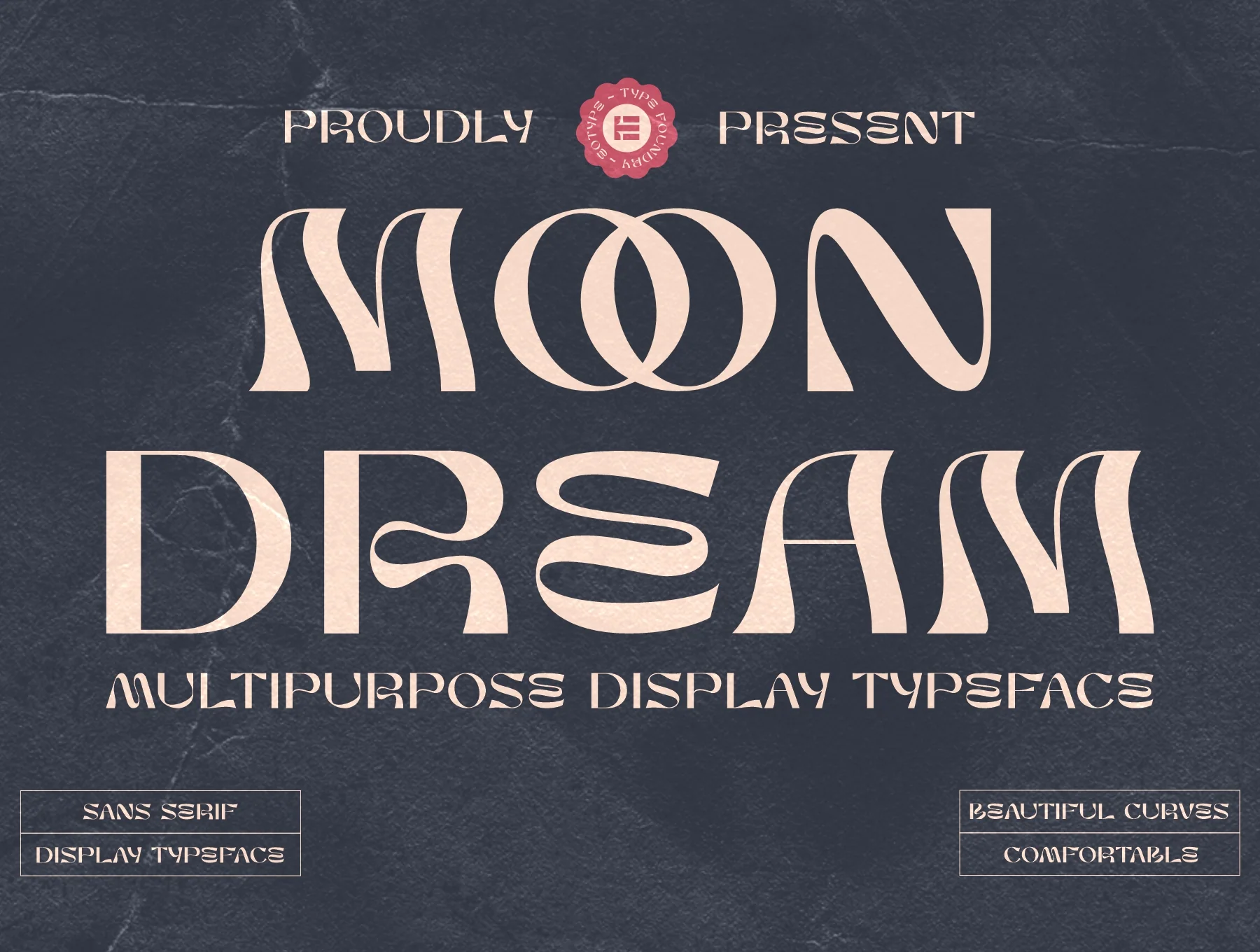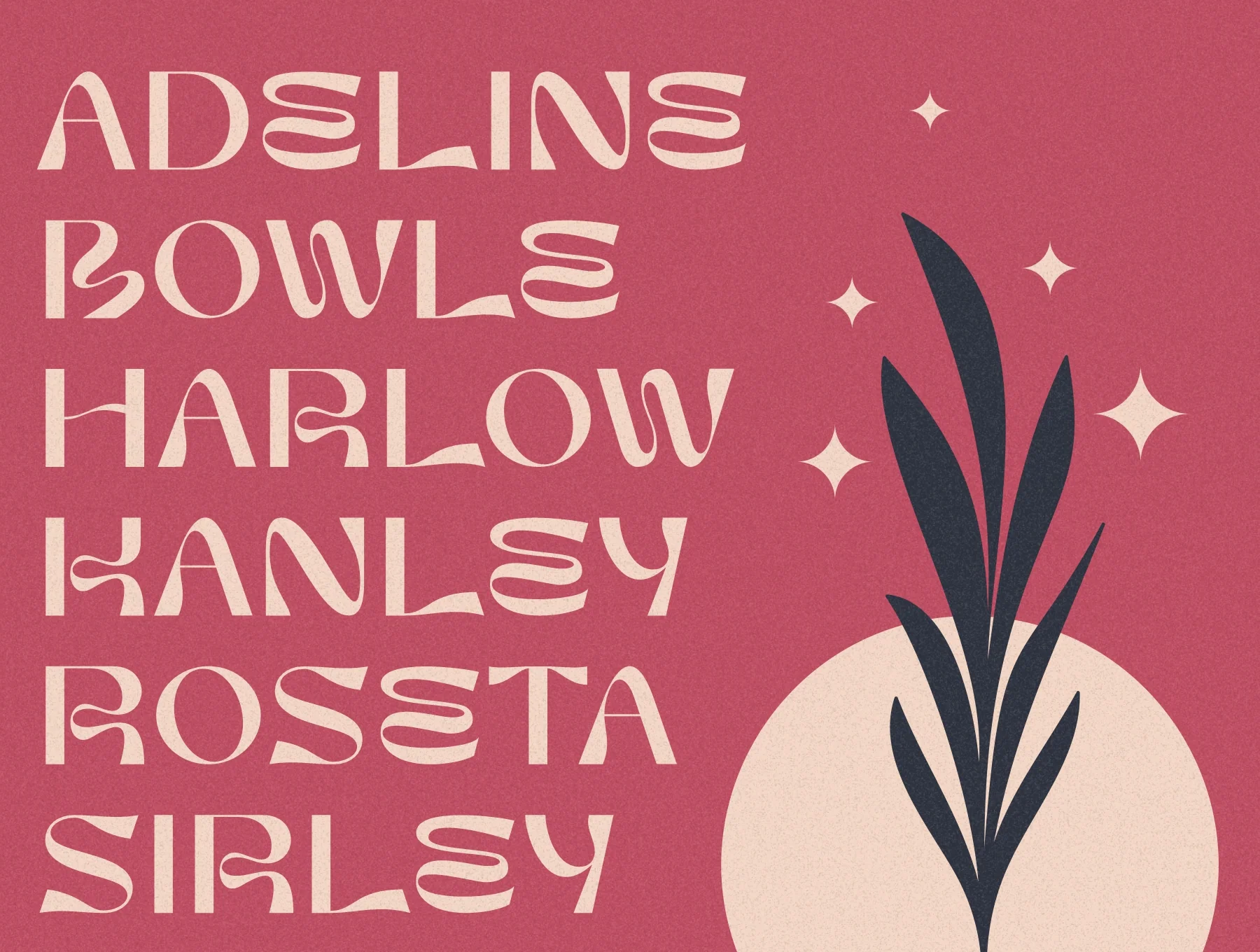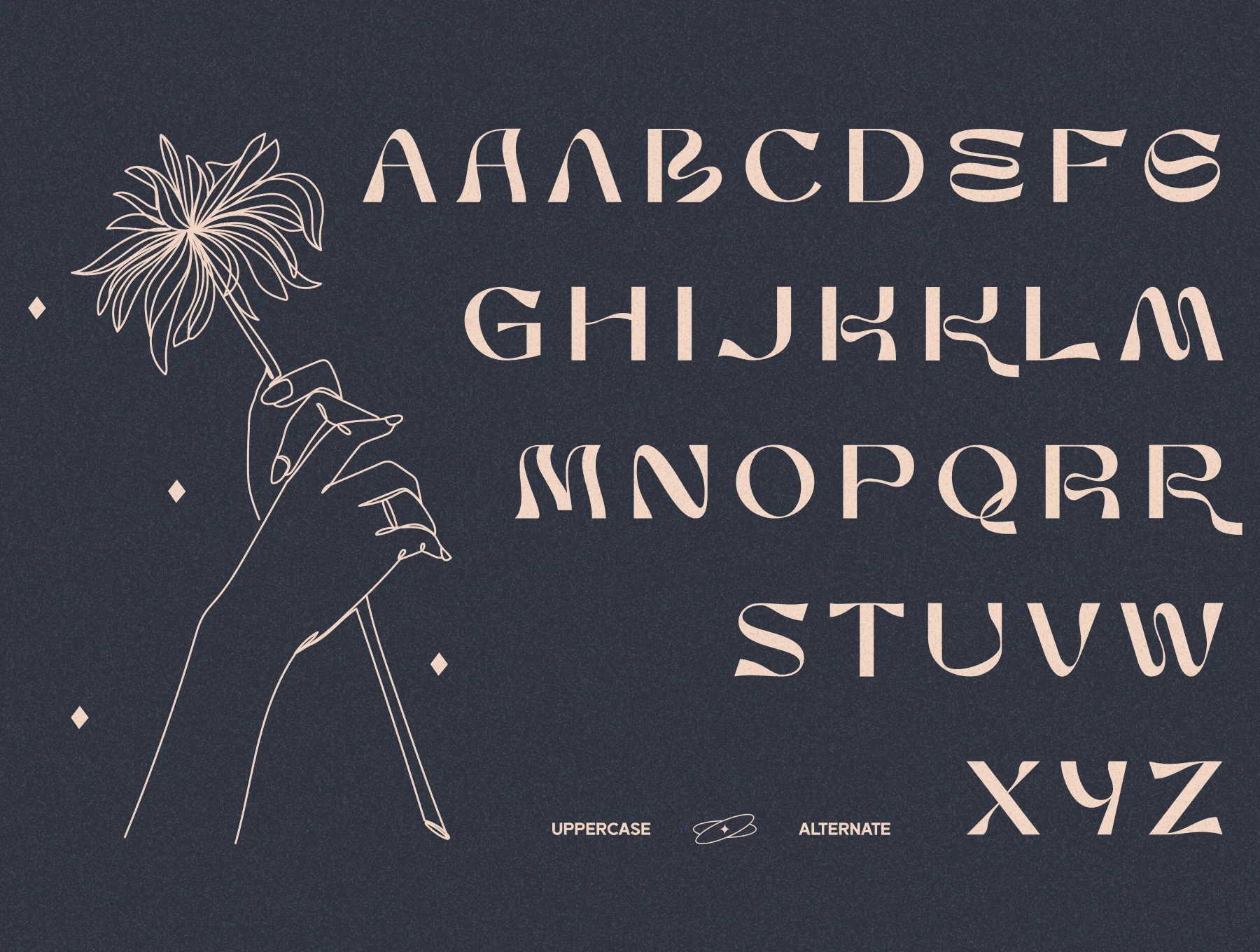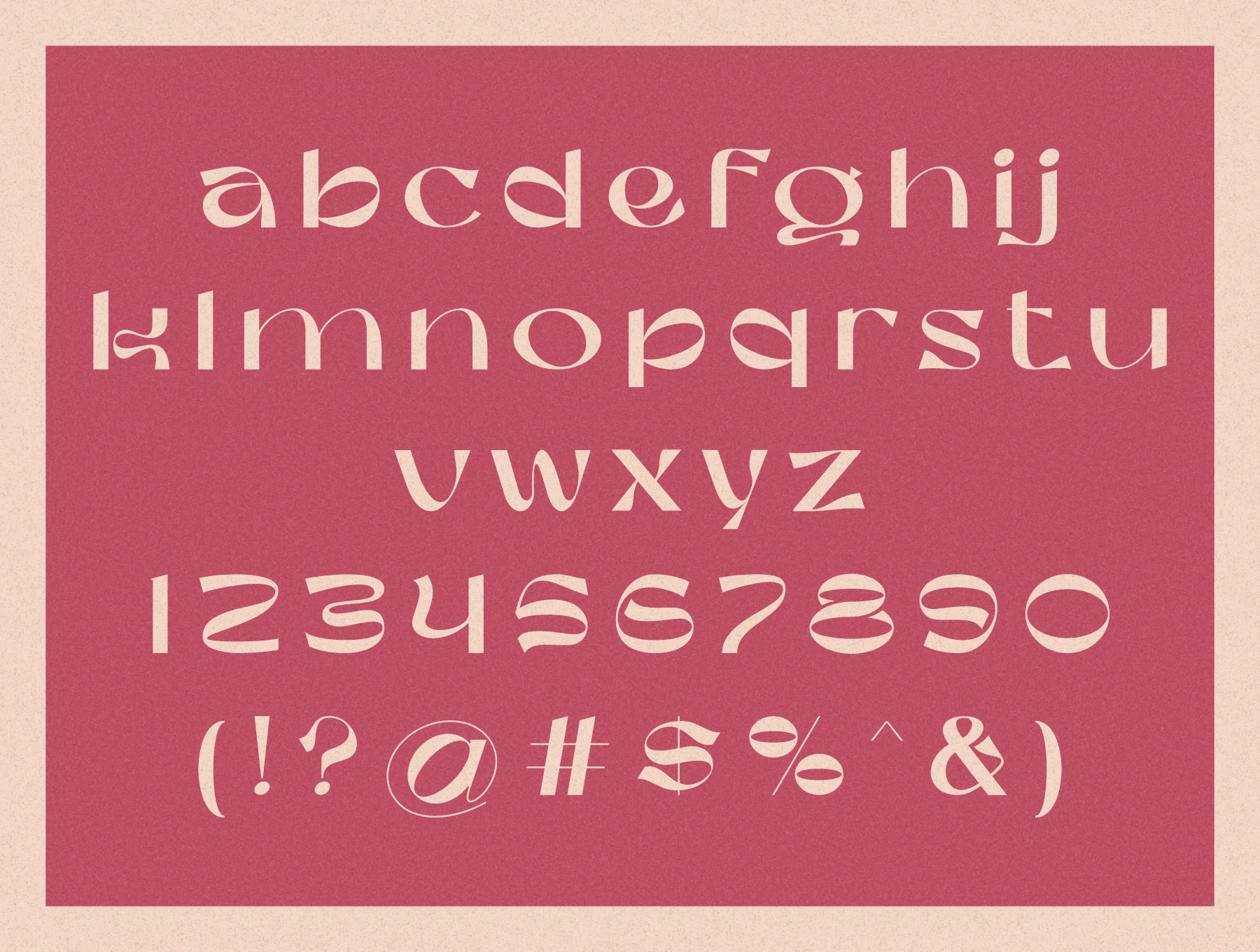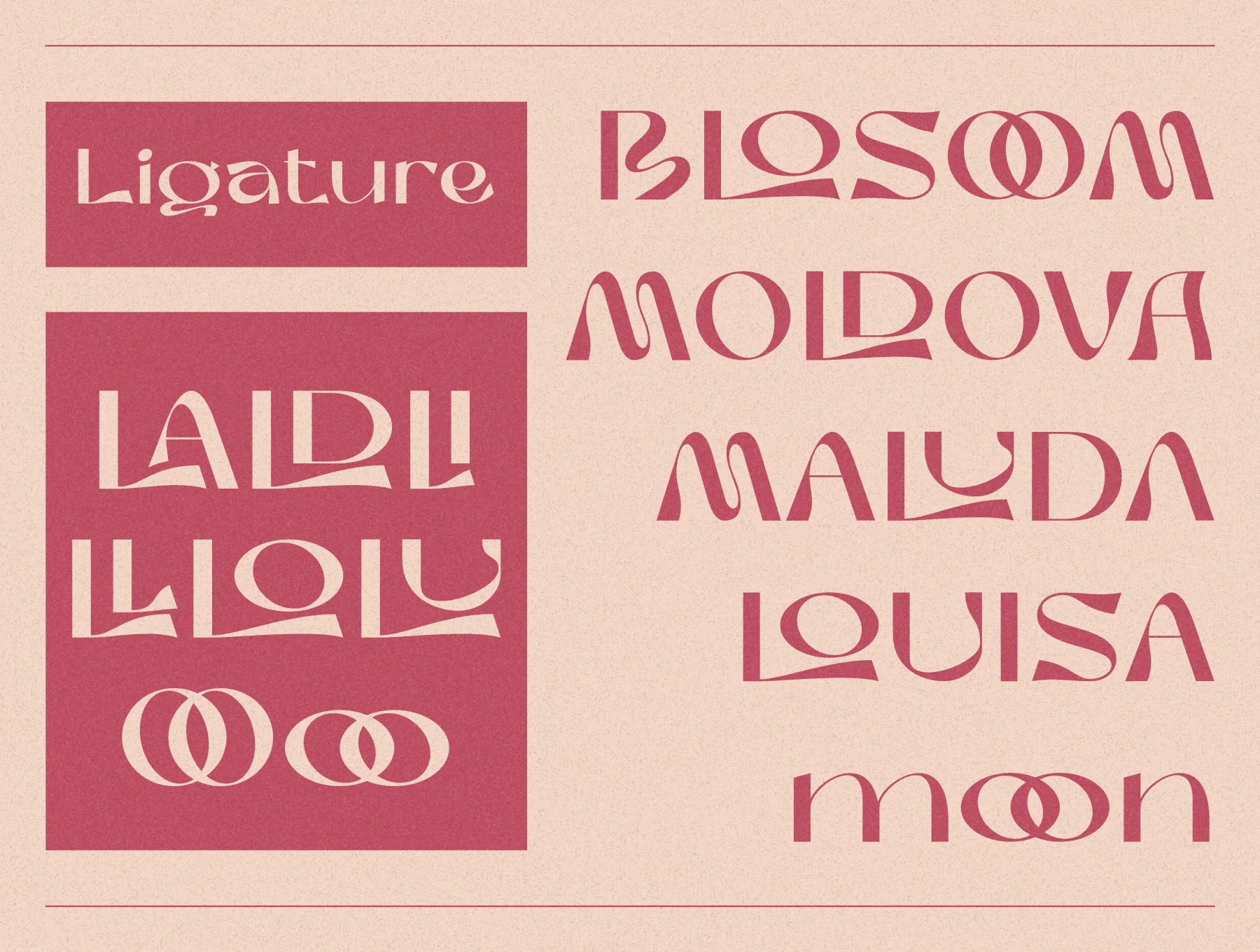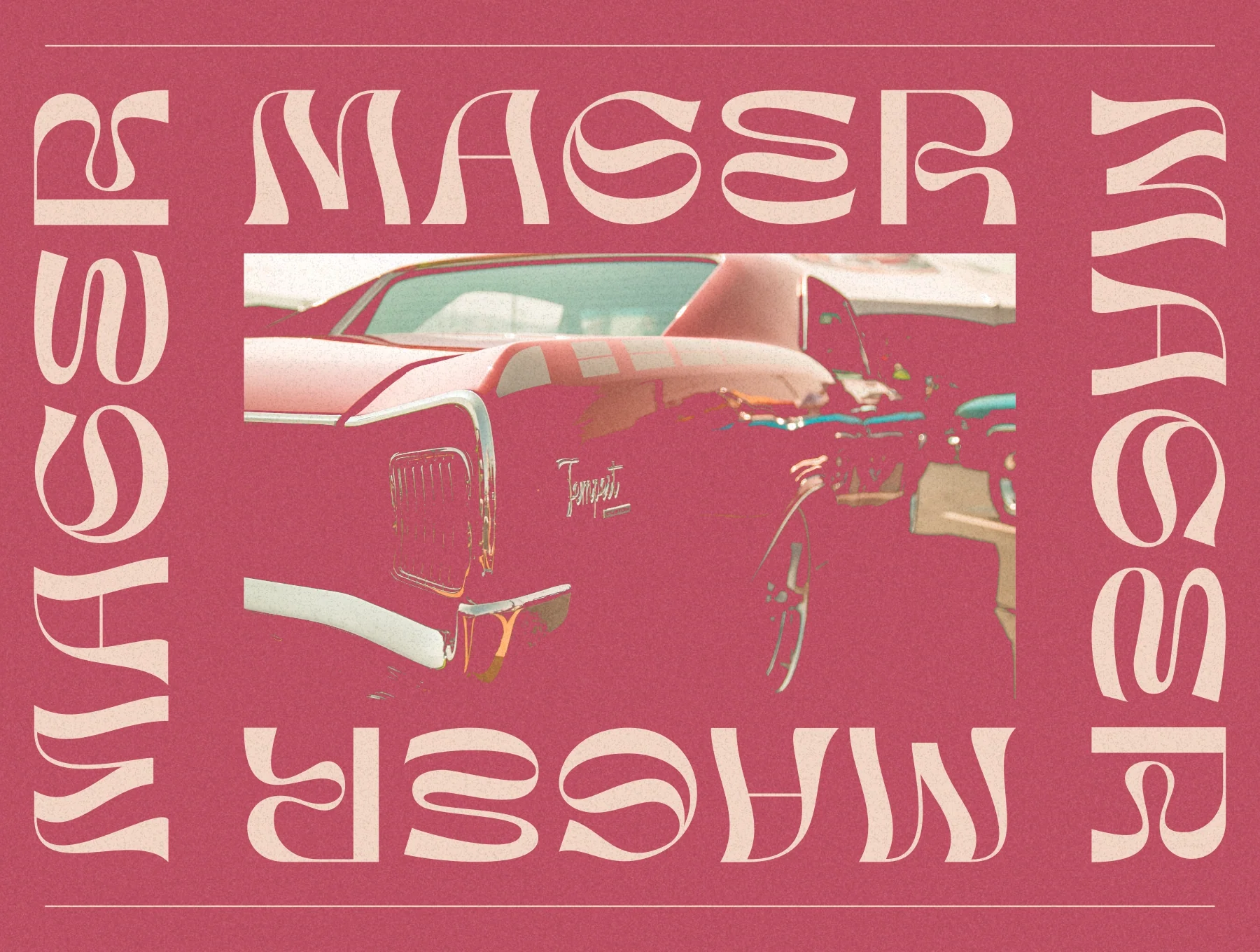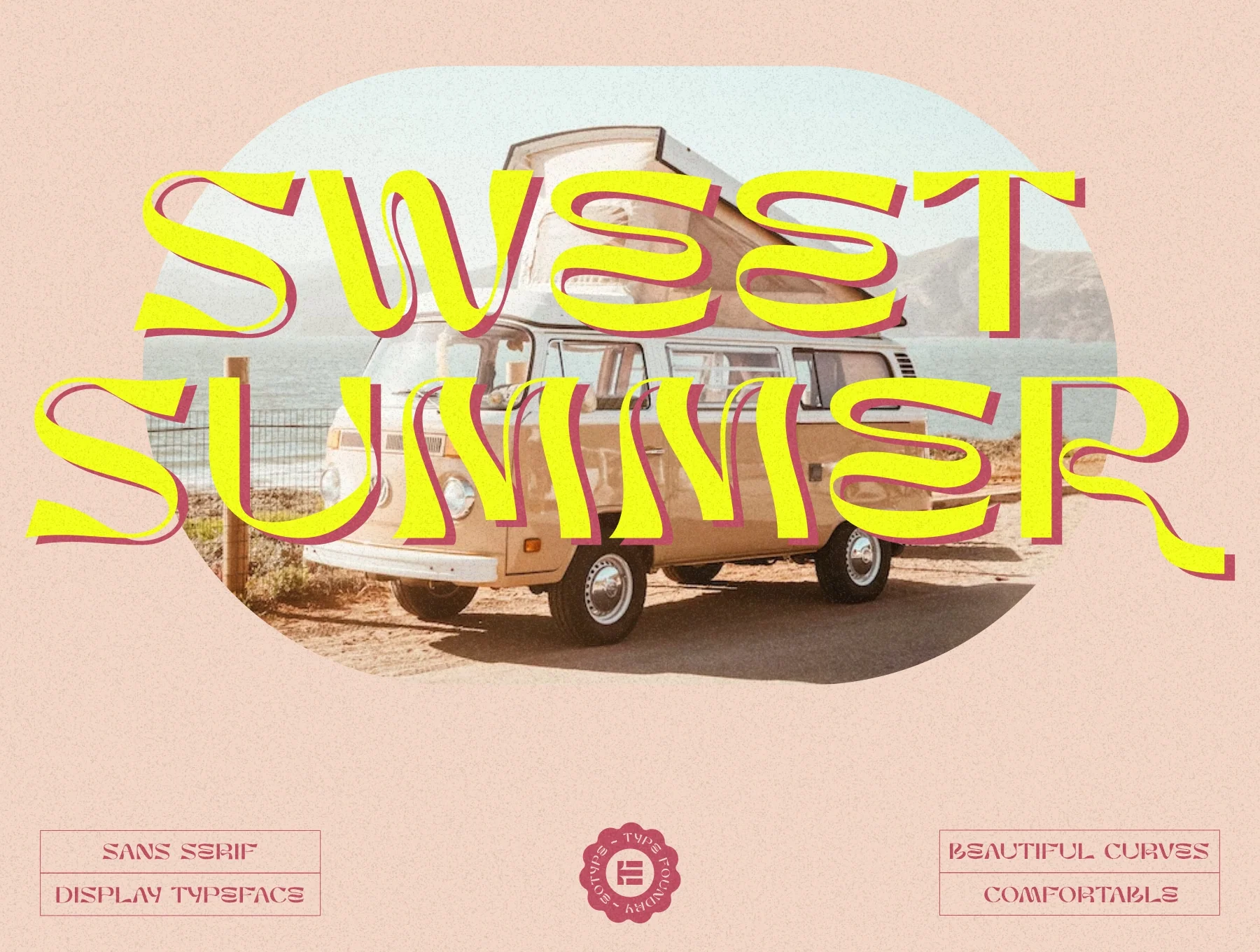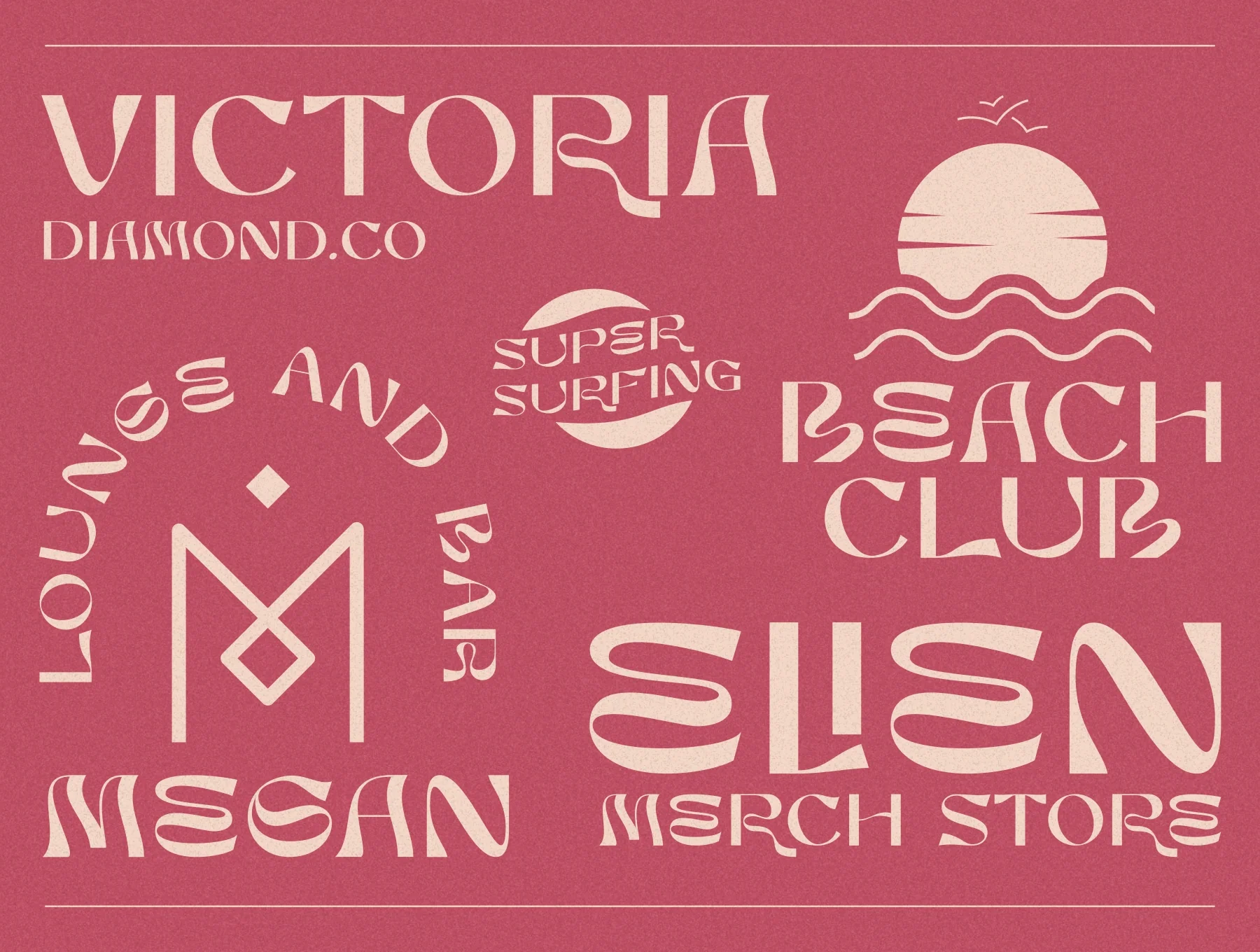
Moon Dream Display Typeface
Moon Dream sans-serif display typeface
Basic glyph set
Numbers and punctuation marks
Support for several languages
Standard weight
Moon Dream is a broad sans serif display typeface with elegant curves and softly rounded terminals for a warm, approachable feel. Its distinctive glyph set, alternate styles, and ligature options make it ideal for enhancing many creative projects.